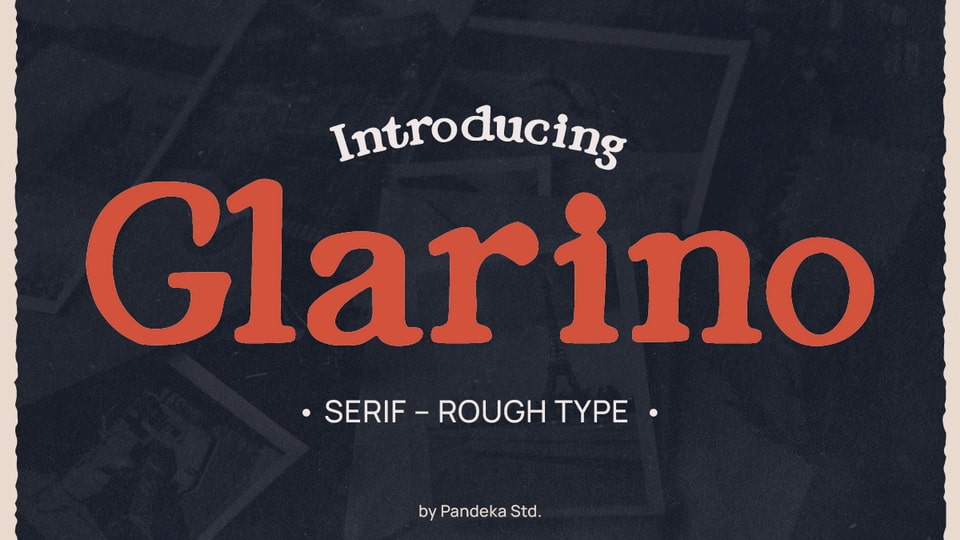
Download Glarino font, a vintage serif typeface that combines classic typography with elegant lettering and bold aesthetics, perfect for timeless designs.